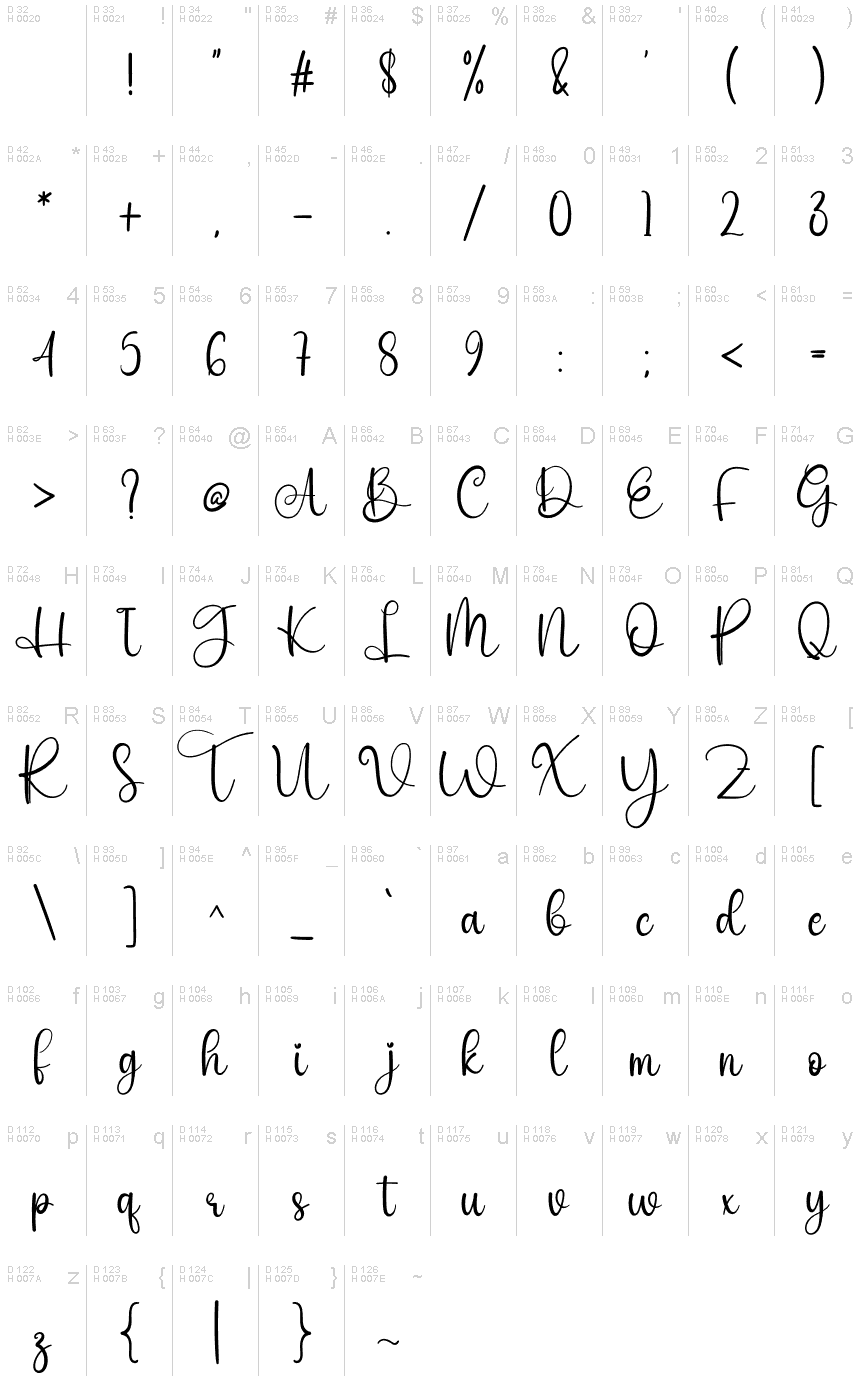
Alive
Alive, a captivating calligraphy font by 39, exudes elegance and grace with its semi-light weight. Its fluid strokes and intricate details add a touch of sophistication to any project.
Perfect for wedding invitations, romantic quotes, or high-end branding materials, Alive truly brings words to life. This enchanting font effortlessly blends traditional charm with a modern twist, making it suitable for fashion magazines, luxury brands, and artistic endeavors. Let Alive be the brush that paints your words with beauty and allure.